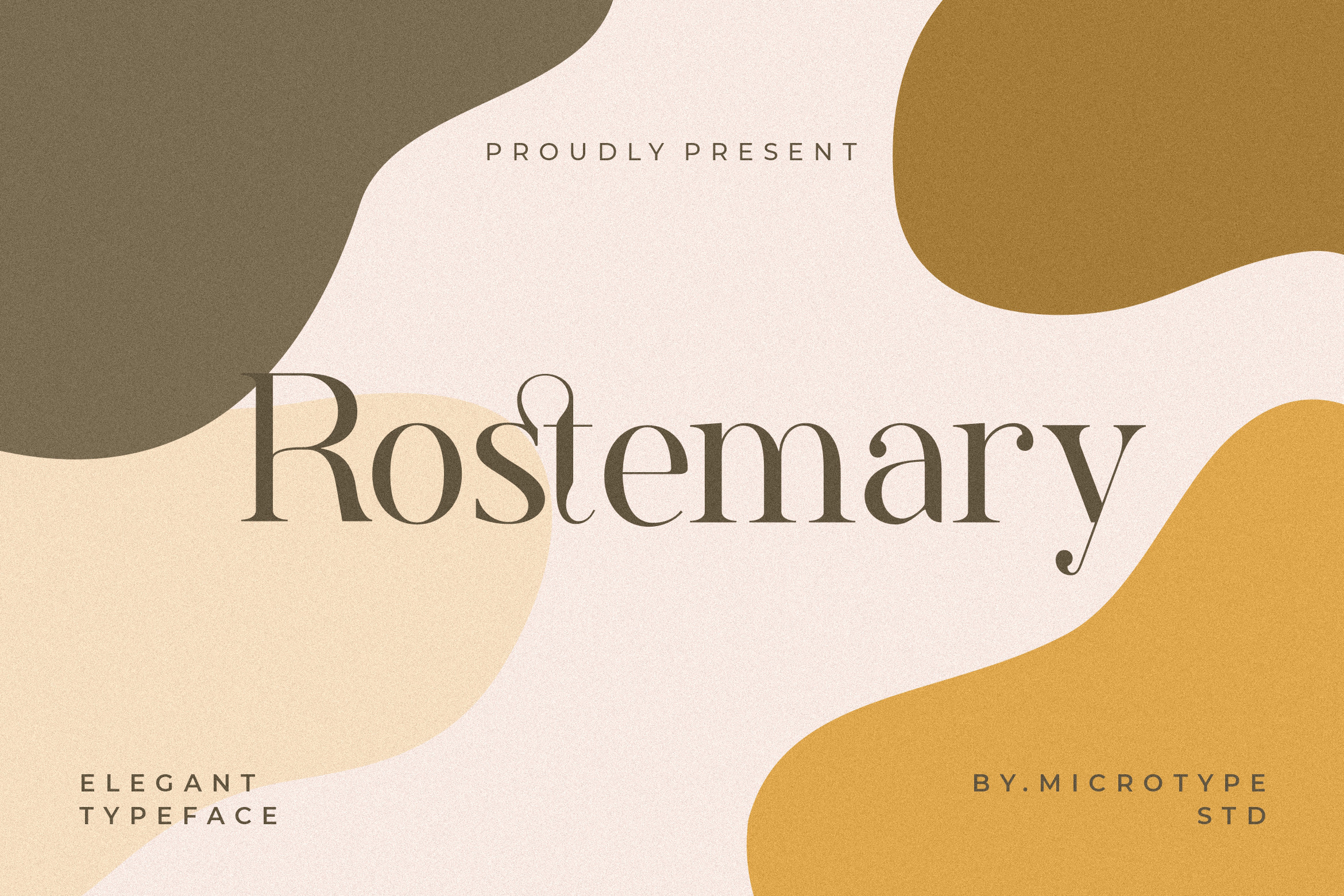
Rostemary Elegant Business Font
Introducing Rostemary Elegant Serif - A new elegant serif font with modern and beautiful ligatures, tons of multilingual support. The font is perfect for for movie title, logo, blogging, brand identity, book title, social media, branding, wedding invites, cards or simply use it in your next design project and suitable to use for many occasion.
- Multilingual Characters support for; Afrikaans, Albanian, Czech, Danish, Dutch, English, Estonian, Finnish, French, German, Hungarian, Icelandic, Indonesia, Italian, Latvian, Lithuanian, Norwegian, Polish, Portugese, Slovak, Slovenian, Spanisch, Swedish.